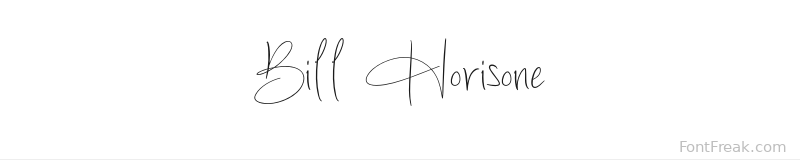
Bill Horisone
The Bill Horisone font by MJType is a captivating handwritten typeface that exudes charm and personality. This font features a unique combination of flowing strokes and playful curves, making it ideal for a wide range of creative applications. With its moderate stroke weight and subtle contrast, Bill Horisone strikes a balance between legibility and artistic flair, allowing it to shine in various design contexts. The spacing is thoughtfully crafted, ensuring that each character connects seamlessly, adding to the overall fluidity of the typeface.
Bill Horisone is an excellent choice for wedding invitations, where its elegant and personal touch can convey warmth and sincerity. It also works beautifully for branding projects, particularly for small businesses that want to establish a friendly and approachable identity. Restaurant menus can benefit from this font's inviting aesthetic, making dishes feel more appealing. Additionally, it is perfect for social media graphics and blog headers, where a casual yet sophisticated look can enhance engagement and attract viewers.
What truly sets the Bill Horisone font apart is its ability to blend artistic expression with functionality. It captures the essence of handwritten typography while maintaining clarity, making it suitable for both digital and print media. For anyone seeking a distinctive typeface that adds a personal touch, the Bill Horisone font free download is an opportunity not to be missed.